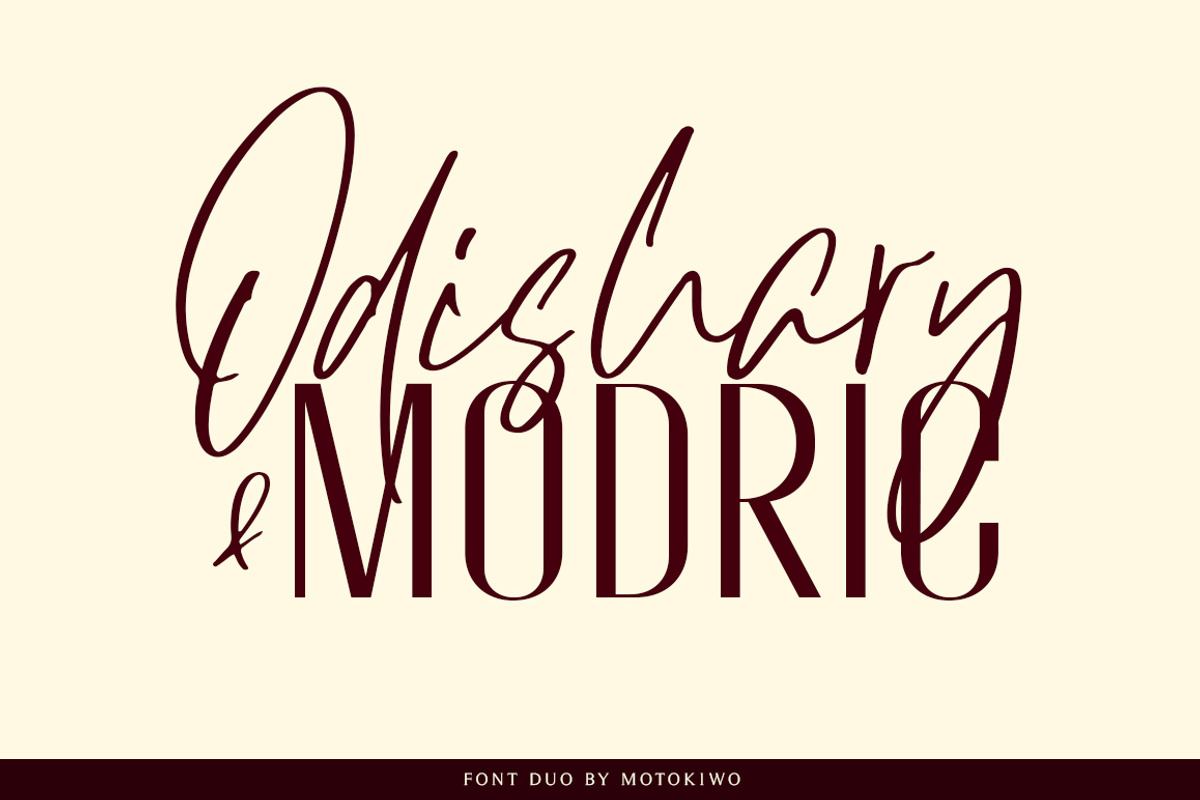
Odishary & Modric Font Duo Free Download is a stylish and versatile font pairing designed to bring elegance and balance to your creative projects. This dynamic duo combines the flowing charm of a modern script (Odishary) with the sleek, contemporary feel of a clean serif (Modric), making it ideal for logos, branding, wedding stationery, social media content, and more.
With Odishary & Modric Font Duo Free Download, you get the best of both worlds—romantic hand-lettered style and strong typographic structure. Whether you're designing for fashion, beauty, or lifestyle brands, this pair works together effortlessly to create stunning typographic harmony.